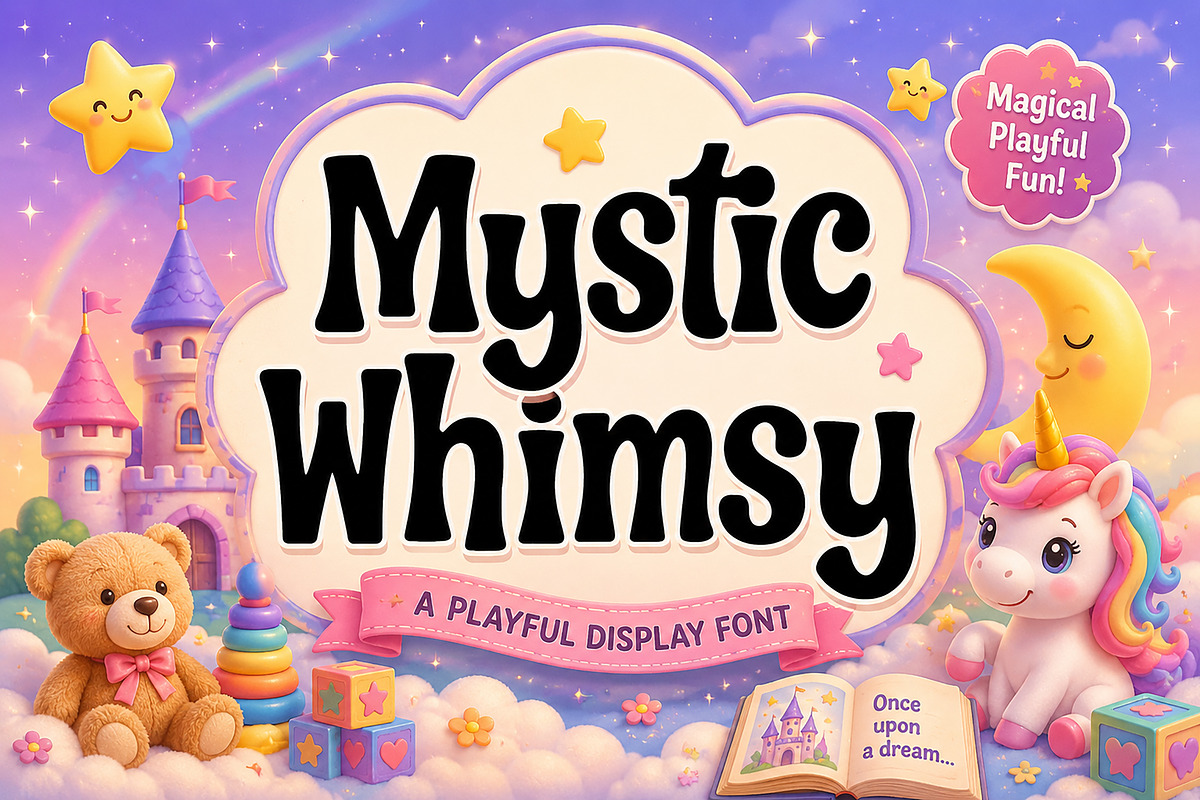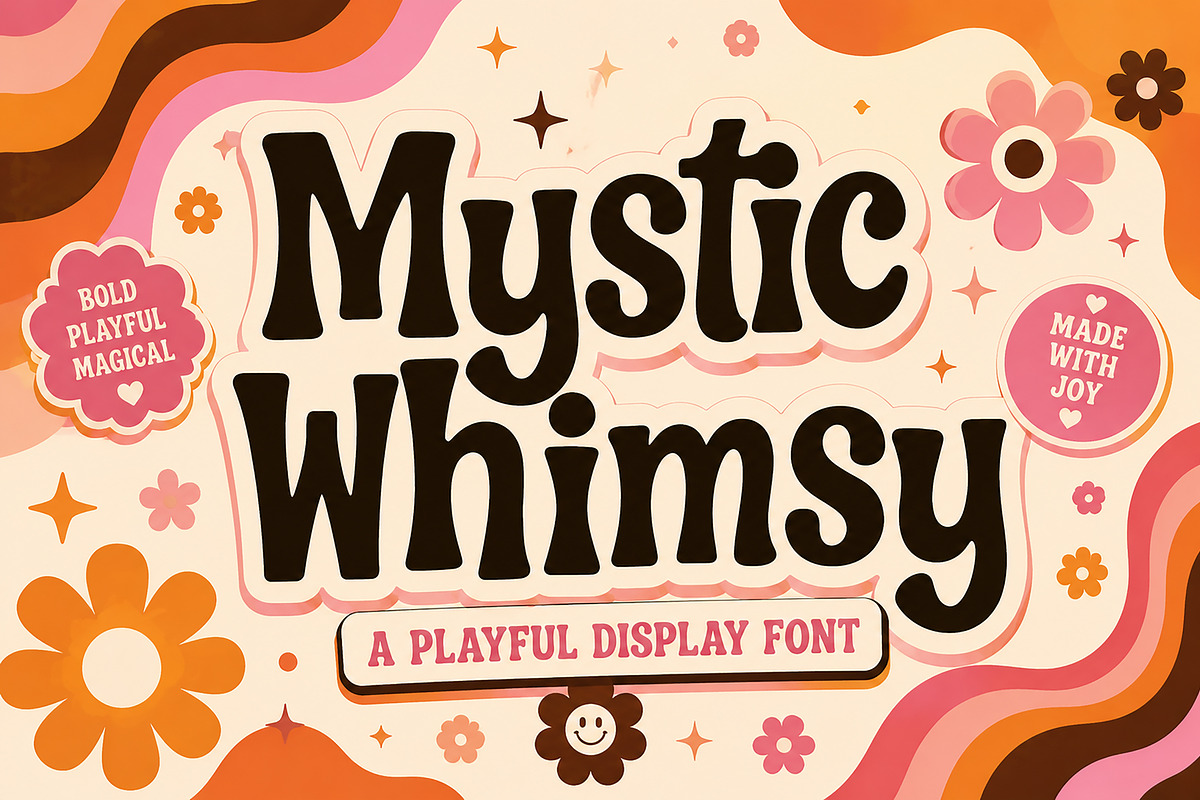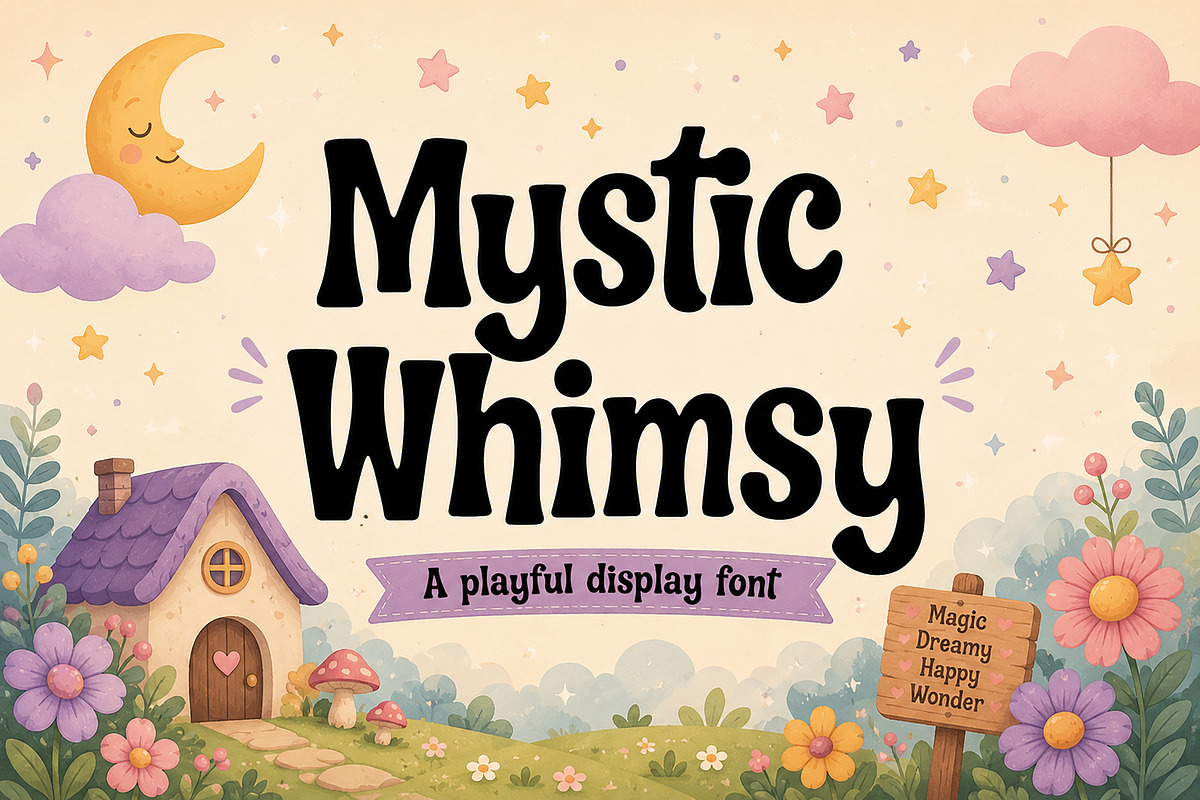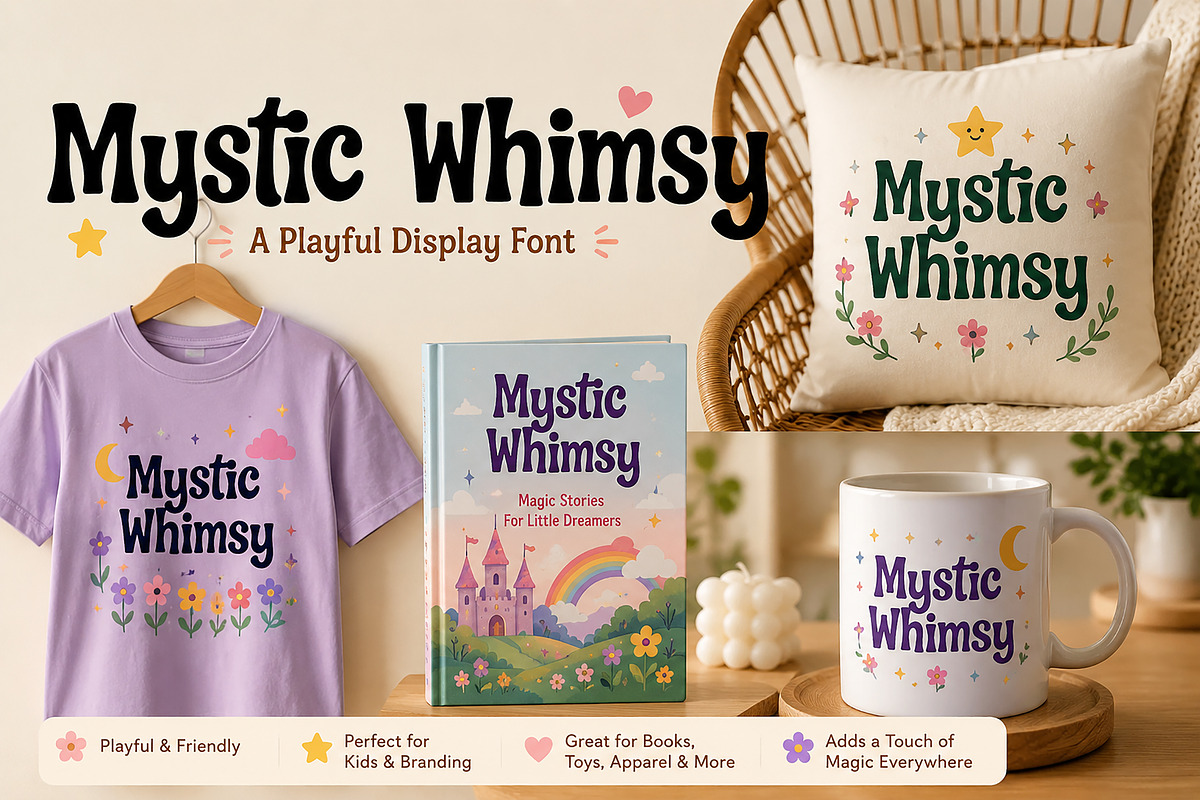
Mystic Whimsy
Mystic Whimsy – Playful Retro Display Font
Mystic Whimsy is a bold, playful display font with a whimsical retro style, perfect for posters, branding, packaging, invitations, stickers, and fun creative designs.
Mystic Whimsy is a charming display font featuring bold letterforms, playful curves, and a quirky vintage-inspired personality. Its fun and expressive style makes it perfect for designs that need a magical, cheerful, and eye-catching look.
This font works beautifully for posters, logos, packaging, greeting cards, invitations, social media graphics, children’s designs, stickers, merchandise, and creative branding. The whimsical shapes give your typography a unique handmade feel while keeping it bold and easy to read.
Whether used for print or digital projects, Mystic Whimsy adds a fun, nostalgic, and imaginative touch to every design.